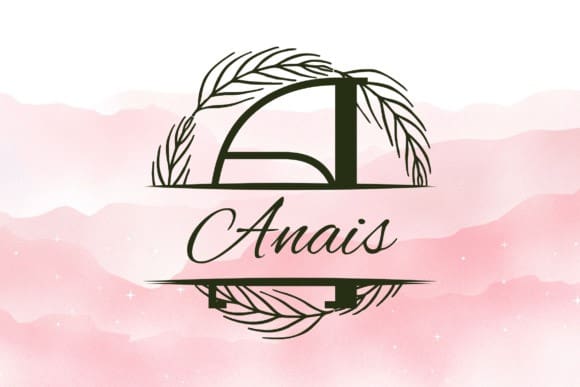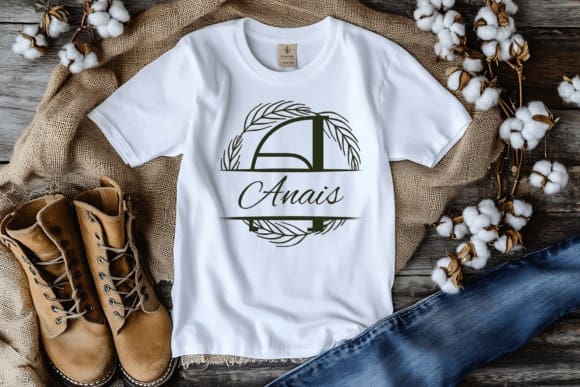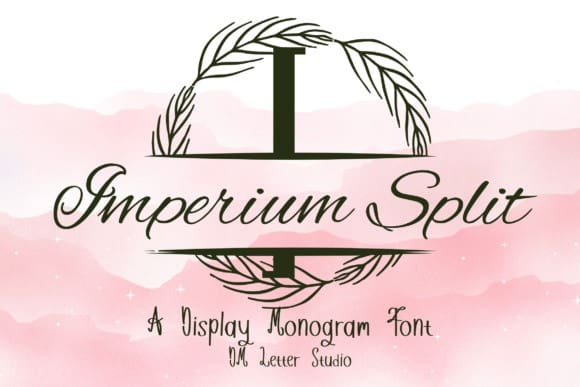
Imperium Split Monogram Font
Imperium Split Monogram Font is a sophisticated and timeless serif split monogram font designed for high-end personalization and premium product branding. Featuring an elegant split through each capital letter, this typeface lets you easily insert names, initials, or dates—making it perfect for weddings, corporate gifts, packaging, and creative Cricut or laser-cut projects. If you’re searching for a regal and functional monogram font, this is the perfect match.
Based on the classical beauty of the original Imperium Monogram, this split version brings added utility while keeping its bold, noble character. Each uppercase letter is designed with precision, drawing inspiration from Roman serif structures, while the horizontal break introduces space for custom names or text. Whether you’re creating luxury invitations or signage for a boutique brand, this font adds prestige and clarity to every project.
The built-in split makes editing easy—you don’t need to manually divide the letters. Just type, personalize, and apply it across a wide range of uses like vinyl decals, engraved signage, nameplates, or monogrammed apparel. Designers and crafters will appreciate how well this font works in both digital and physical applications, including wedding suites, thank-you cards, business logos, and social media branding.
Whether you’re creating a custom acrylic sign for a wedding, a branded metal label, or a logo with a luxury feel, Imperium Split Monogram delivers elegance with flexibility.